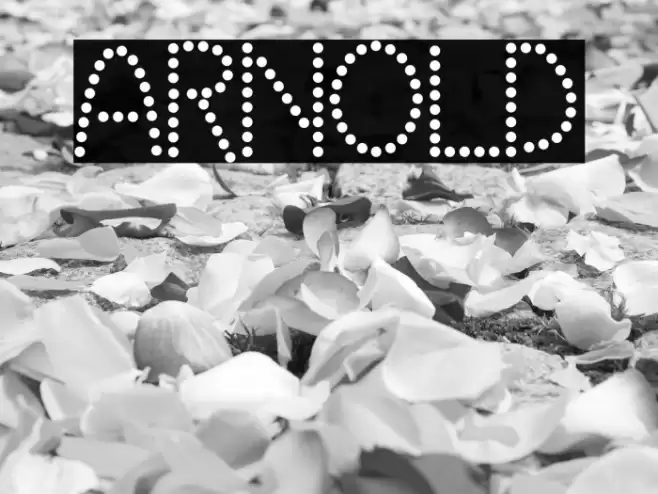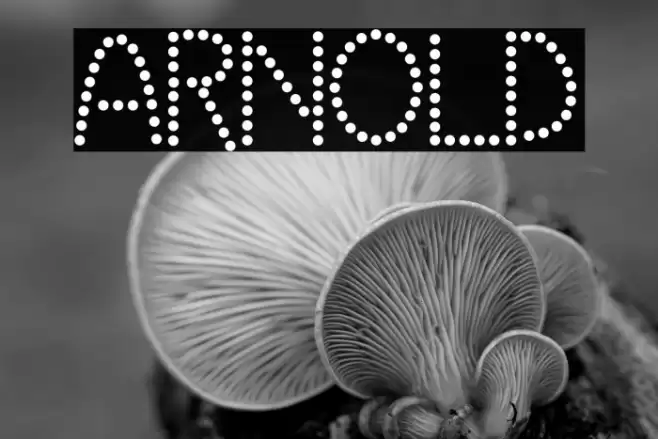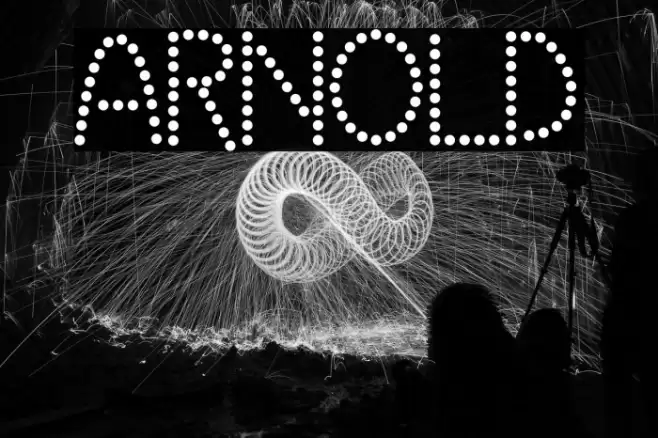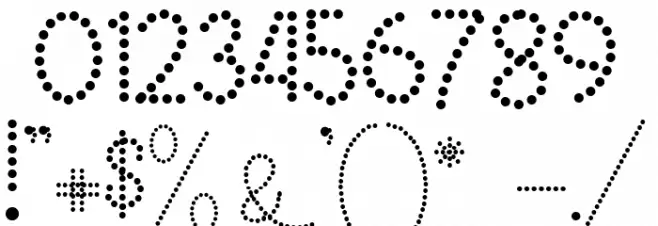
ARNOLD Font
ARNOLD Description
This font features a unique dotted design, where each character is composed entirely of evenly spaced dots. The uppercase and lowercase letters maintain a consistent style, creating a cohesive and playful appearance. The numbers and special characters follow the same dotted pattern, ensuring uniformity across all glyphs. This font's distinct style makes it stand out, offering a modern and artistic look that can add a touch of creativity to any project. The spacing between the dots is consistent, providing a clean and organized appearance, while the overall design is both eye-catching and legible.
A modern, dotted font with consistent spacing and a playful style from Uncategorized fonts.
- Proposed Projects: Ideal for creative projects such as posters, invitations, and branding materials that require a unique and artistic touch.